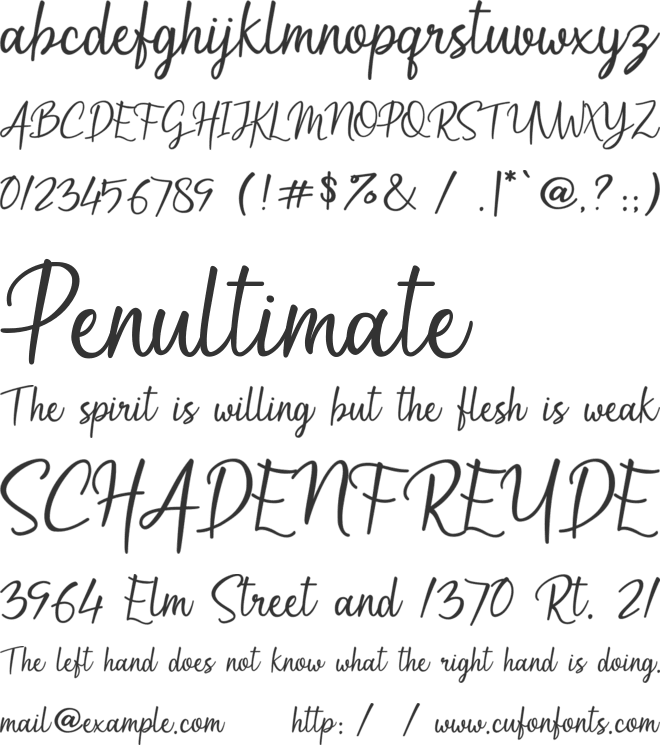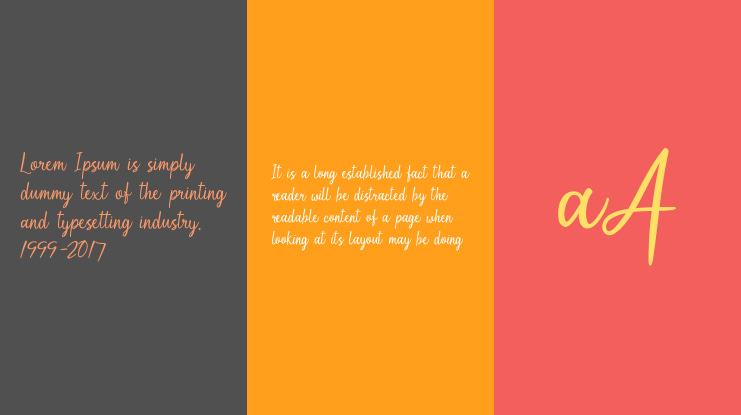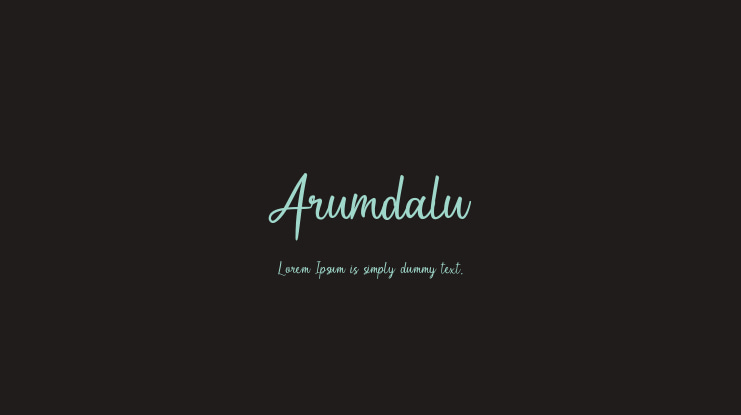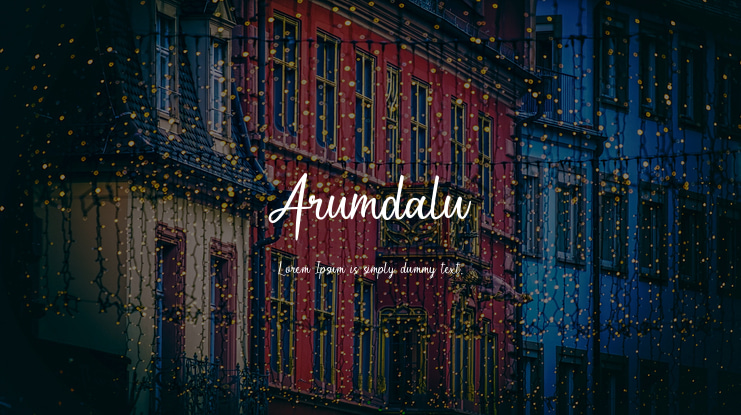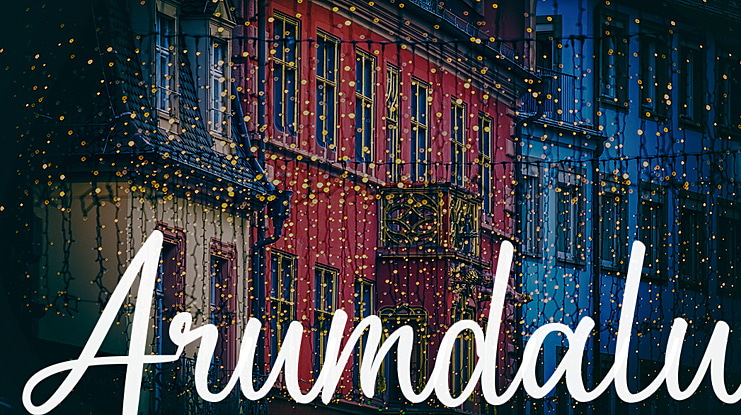
Arumdalu Font
Arumdalu is a simple, yet stylish handwritten font that is easy to remember. Its a perfectly versatile font for any occasion! This is a demo version, full version available at: https://www.creativefabrica.com/product/arumdalu/